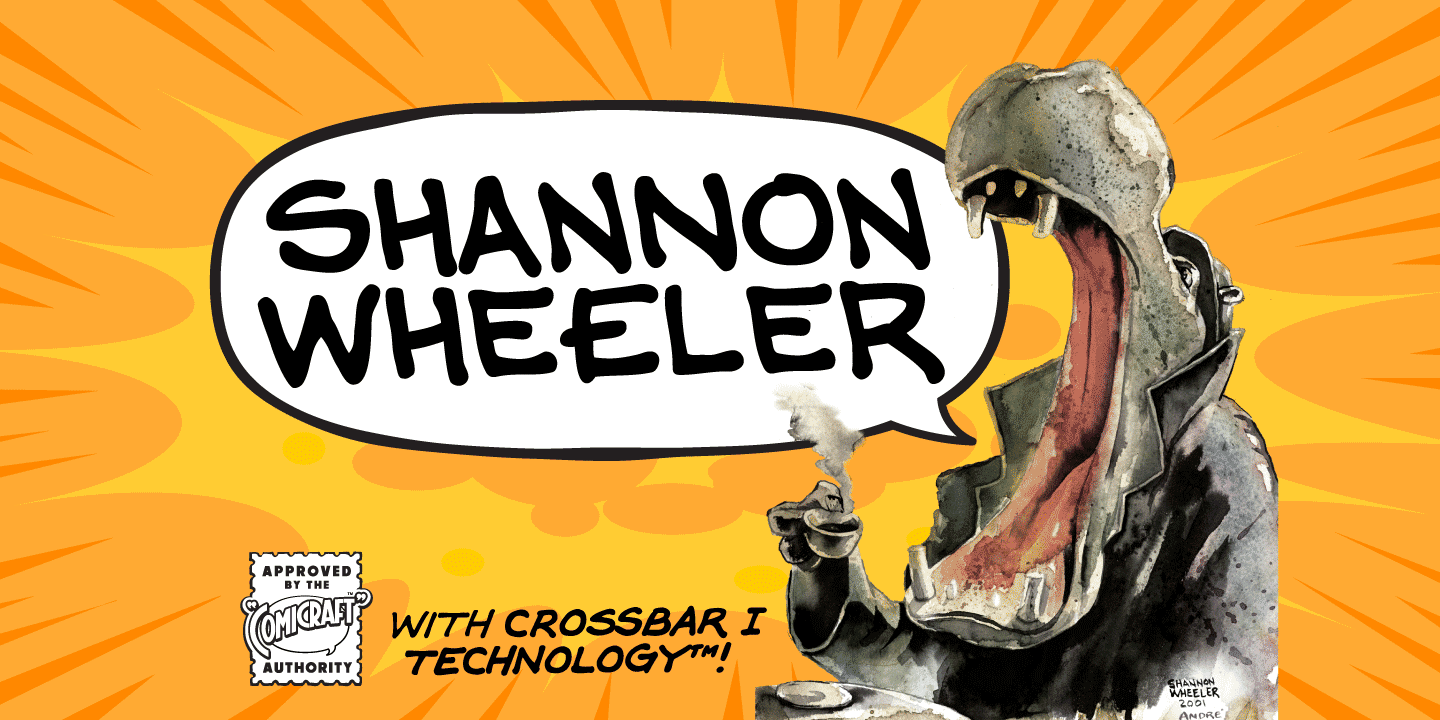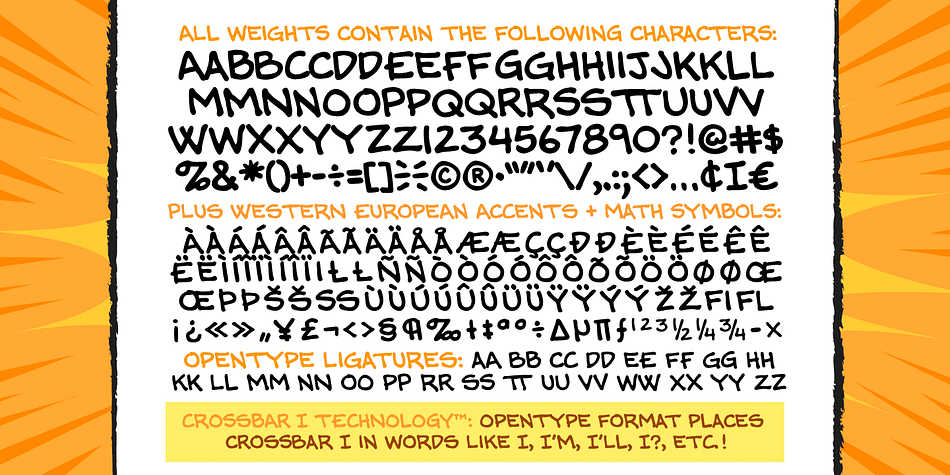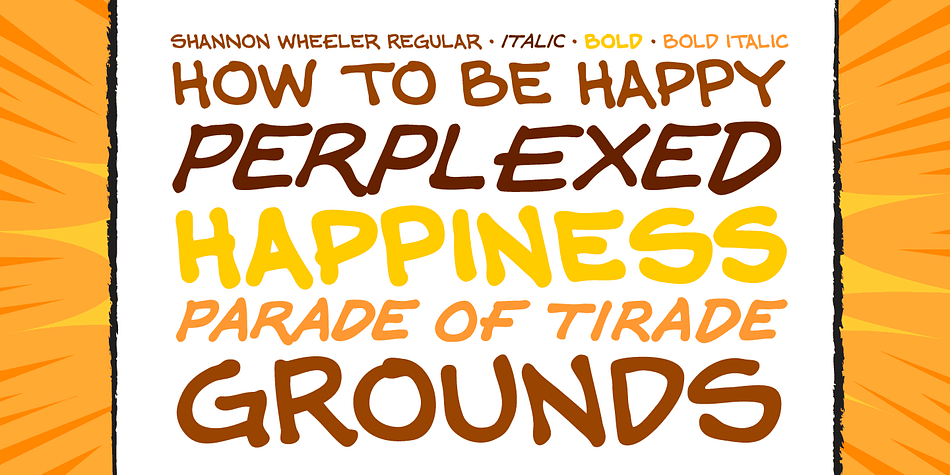
Designed by John Roshell and Shannon Wheeler, Shannon Wheeler is a comic and hand display font family. This typeface has four styles and was published by Comicraft.
If you’ve had too much coffee but not enough of Too Much Coffee Man you can now indulge in an excess of characters created by the hand of Too Much Coffee Man’s creator, Mister Shannon Wheeler. Don’t worry, in our efforts to ensure clean and confident lettering samples, we kept Shannon on decaf until he was done. Dip this font in your system folder and your hard drive will get a caffeine and sugar rush guaranteed to increase its memory partition and bring the images on your monitor into sharper focus.